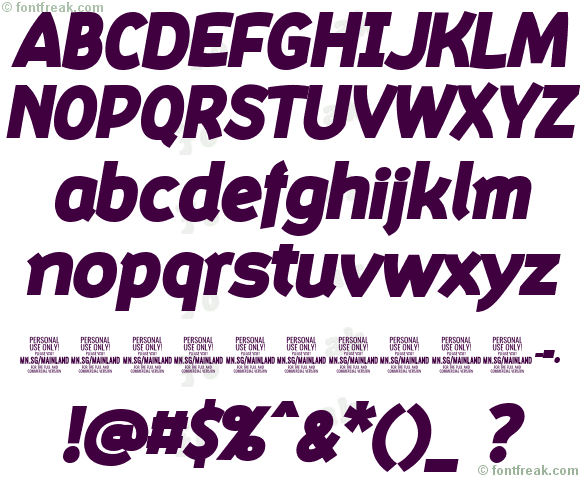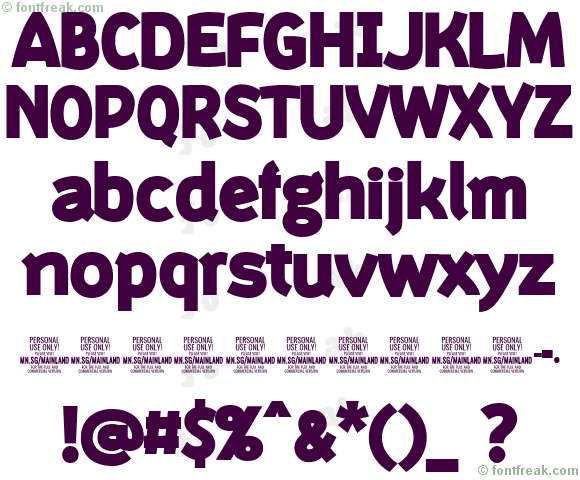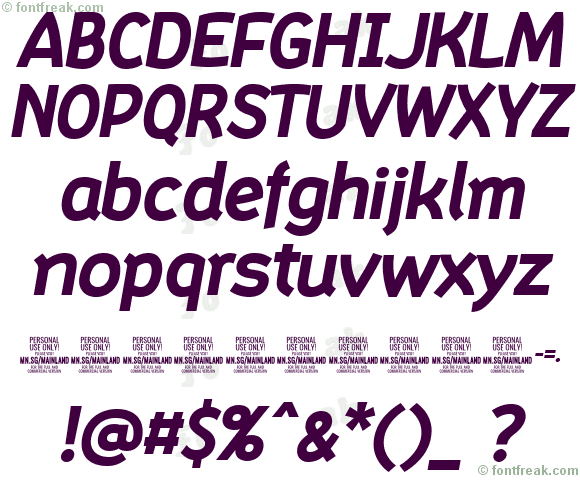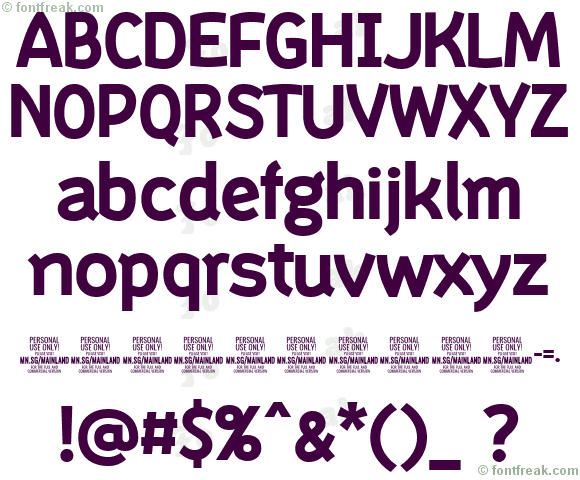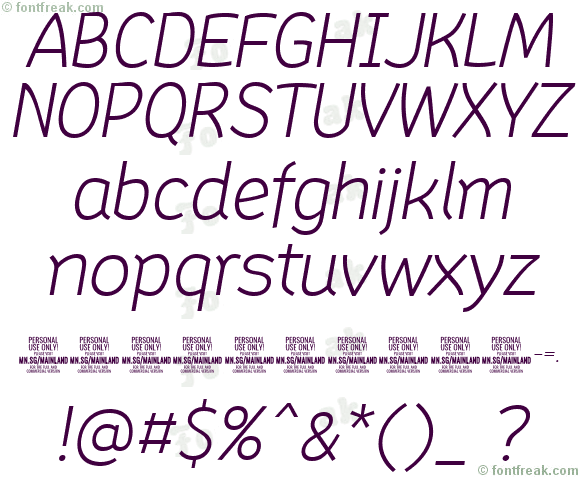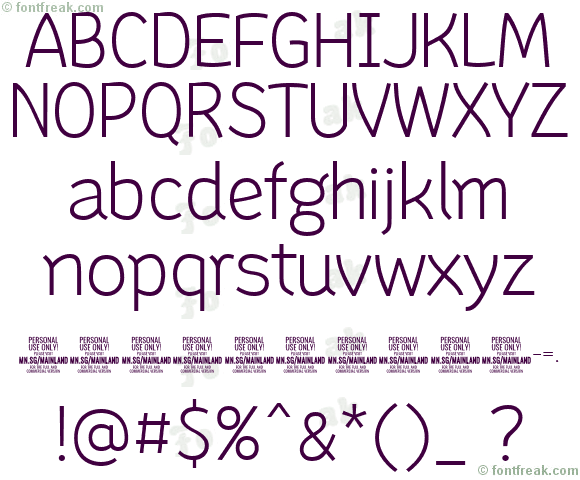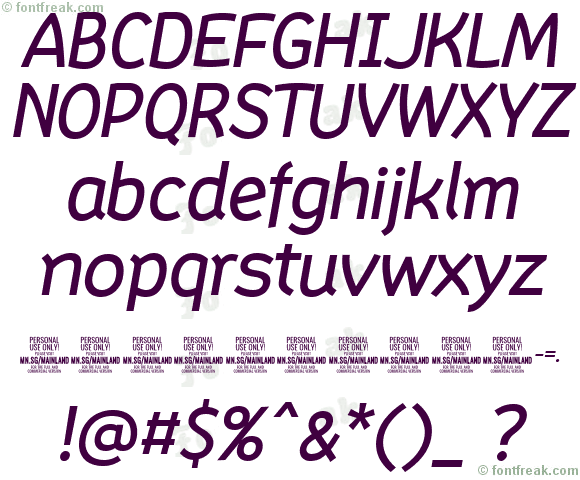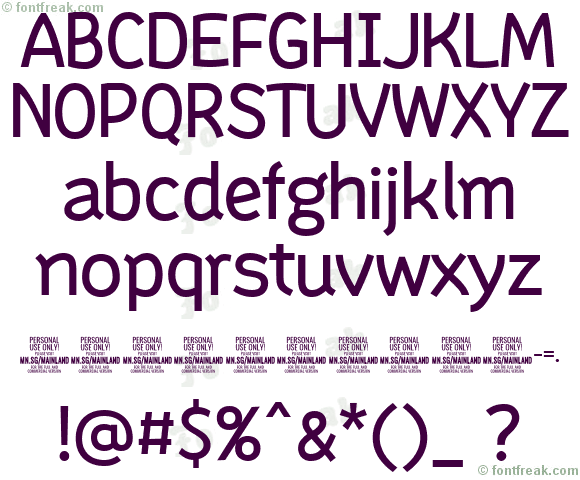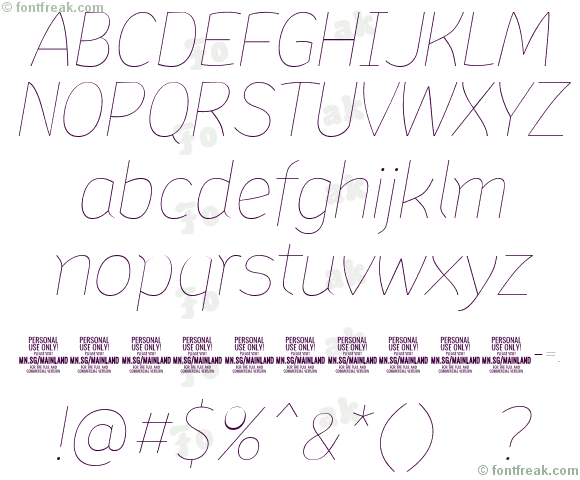
Mainland PERSONAL Medium
Mainland PERSONAL Medium is a versatile sans-serif font designed by Mans Greback, characterized by its clean and modern aesthetic. This font showcases a medium stroke weight, providing a balanced visual presence that is neither too bold nor too light. The letters feature a uniform contrast, enhancing readability while maintaining a contemporary feel. Its spacious letterforms ensure clarity, making it ideal for various applications.
This font is particularly well-suited for a range of use cases. Graphic designers will find it perfect for creating engaging wedding invitations that require a touch of elegance without overwhelming the viewer. Small business owners can leverage Mainland PERSONAL Medium for restaurant menus, as its readability helps diners easily navigate options. Additionally, it works wonderfully for movie posters, where clear, striking typography plays a crucial role in capturing audience attention. Content creators can use it in social media graphics, ensuring their messages are communicated clearly and attractively.
The target audience for Mainland PERSONAL Medium includes graphic designers looking for fresh typography, small business owners wanting to enhance their branding, and content creators aiming for eye-catching visuals. Its clean lines and approachable demeanor make it a favorite among those seeking a modern yet timeless font.
What sets Mainland PERSONAL Medium apart is its ability to blend functionality with style. The font’s design is not just about aesthetics; it is crafted to enhance communication, making it a valuable addition to any designer’s toolkit. With its freeware license, you can easily incorporate this font into your projects, allowing for a Mainland PERSONAL Medium font free download that opens up endless creative possibilities. Whether you’re designing a flyer or a branding project, this font delivers the perfect balance of professionalism and charm.